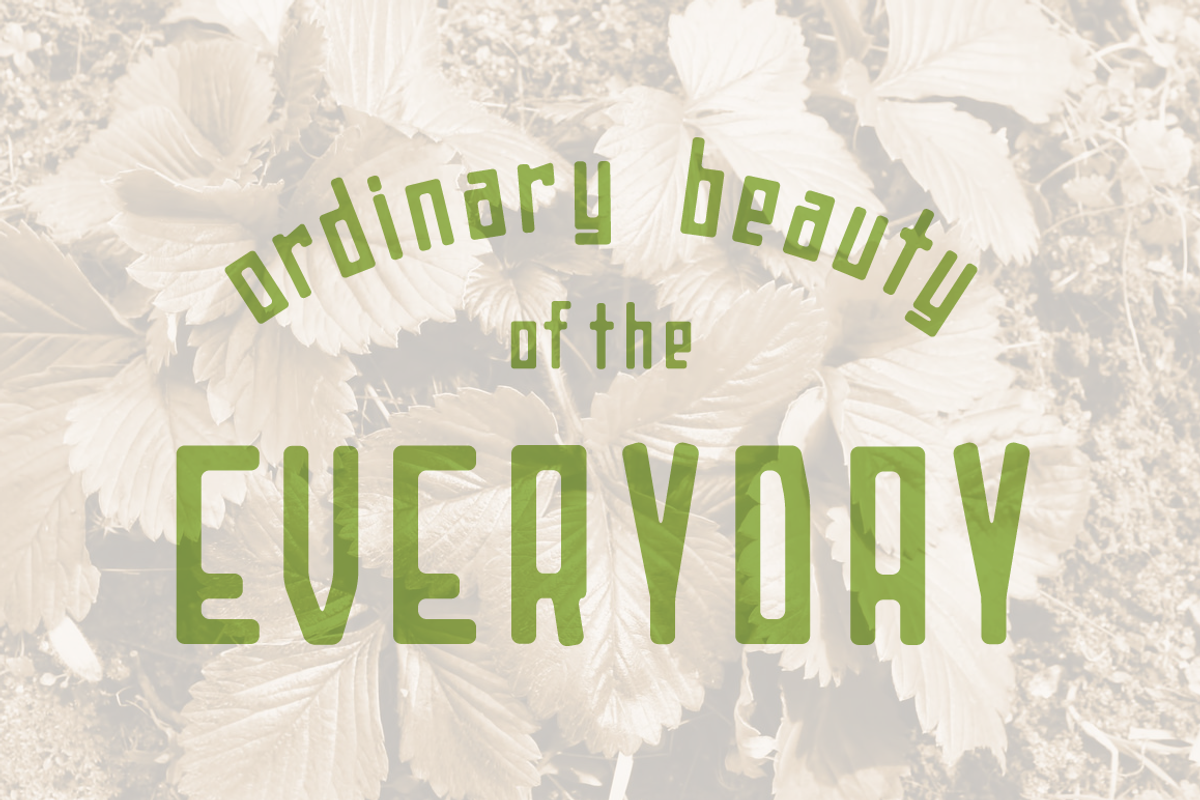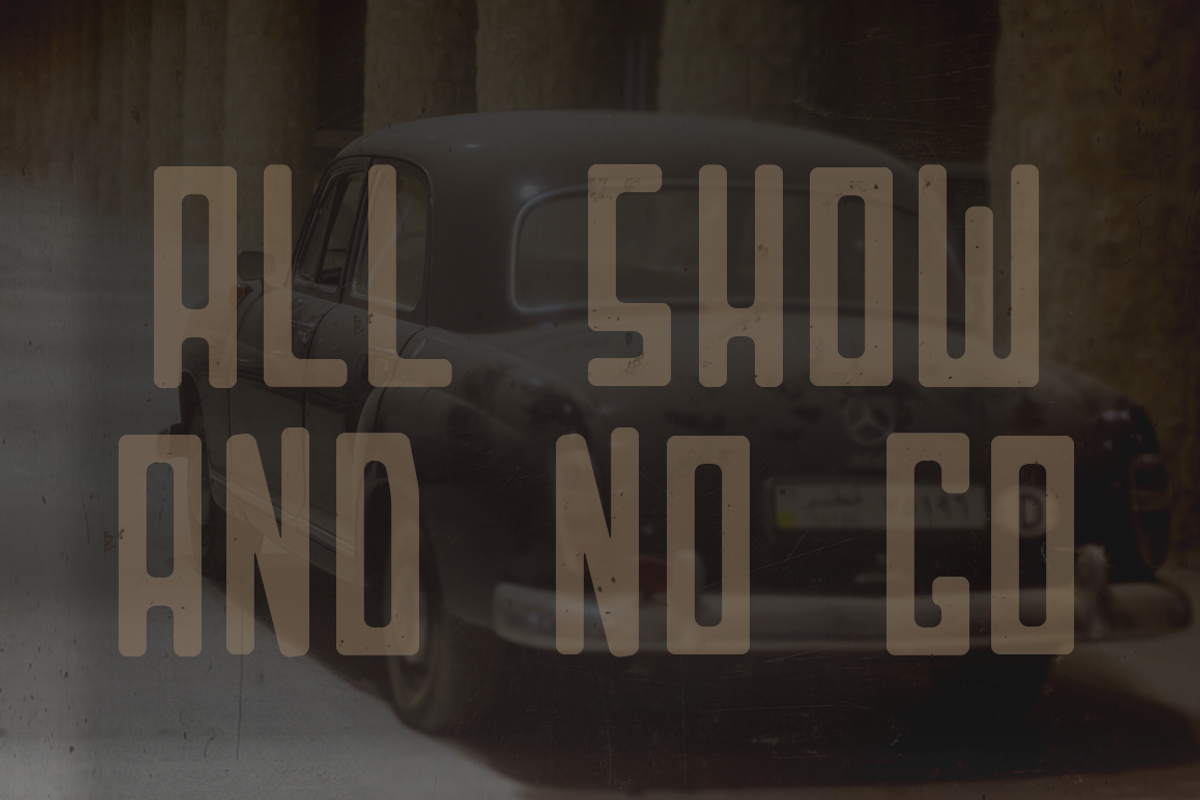
White Bonfire Display Font
White Bonfire Display Font by SpacerCreative is a font selected for branding, posters, packaging, typography.
- Subtle Rounded Edges
- A Condensed Modern Feel
- Punctuation
Why White Bonfire Display Font is worth a look
White Bonfire Display Font by SpacerCreative fits naturally into Branding, posters, packaging, typography.